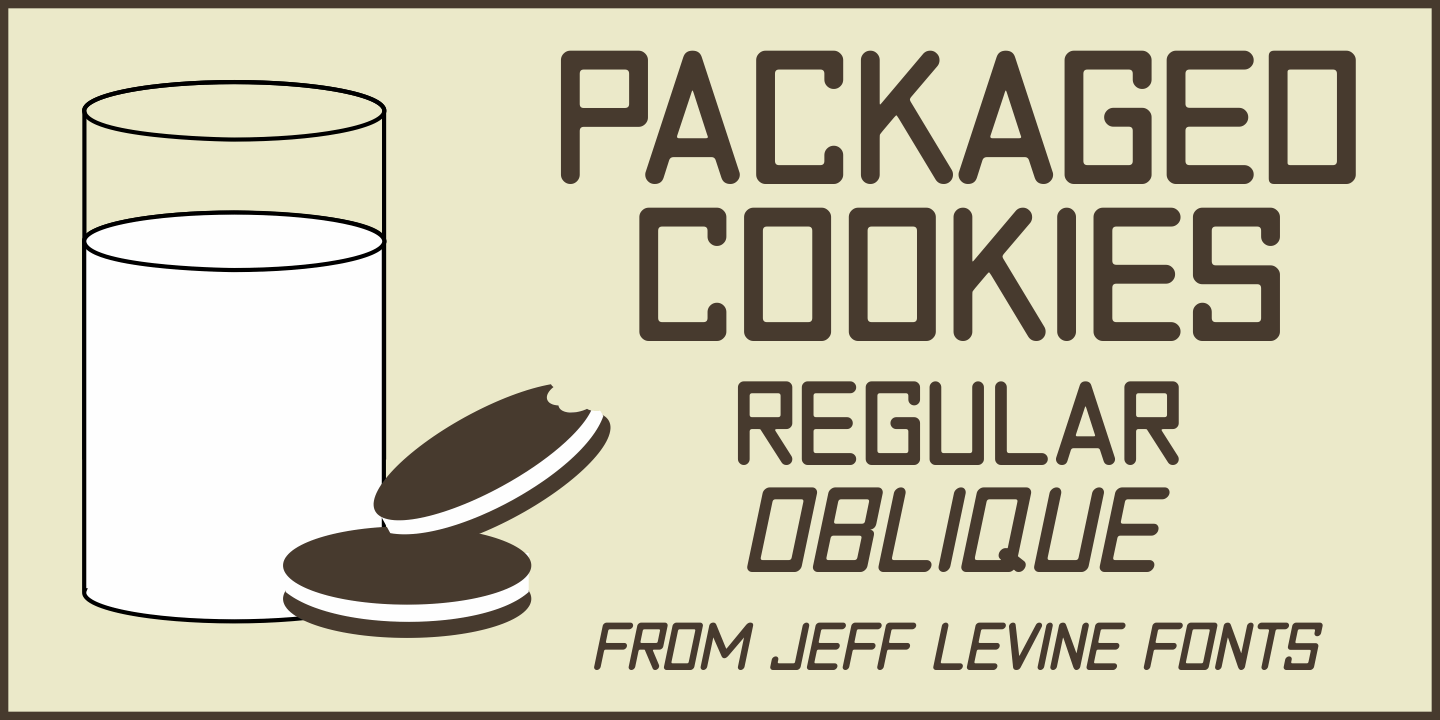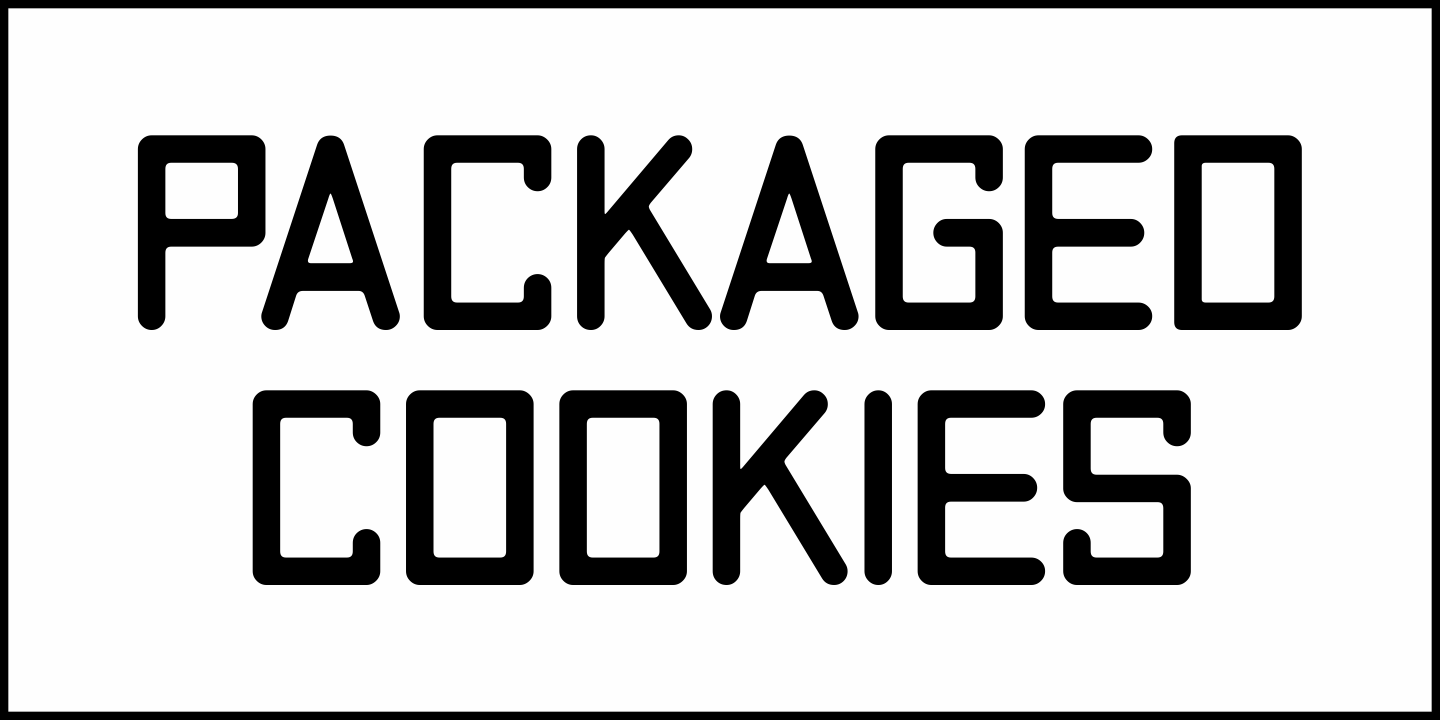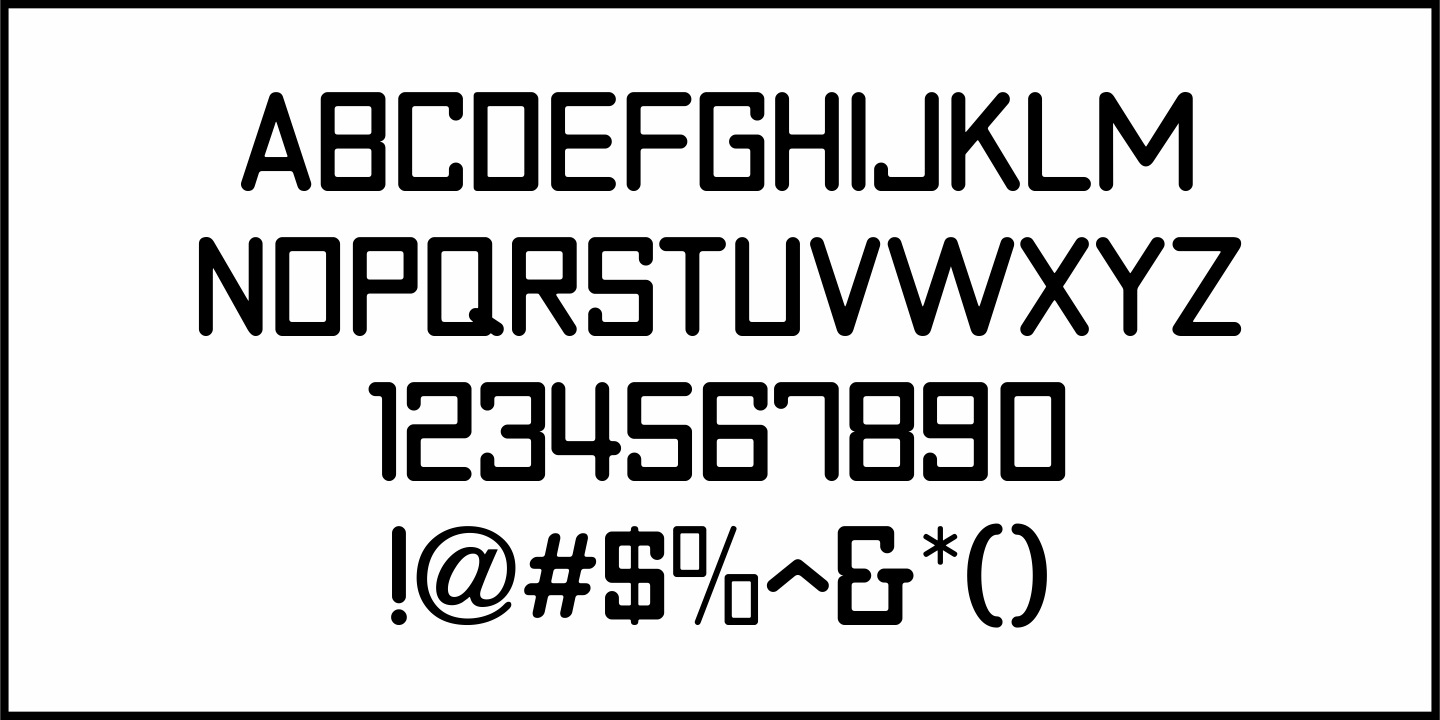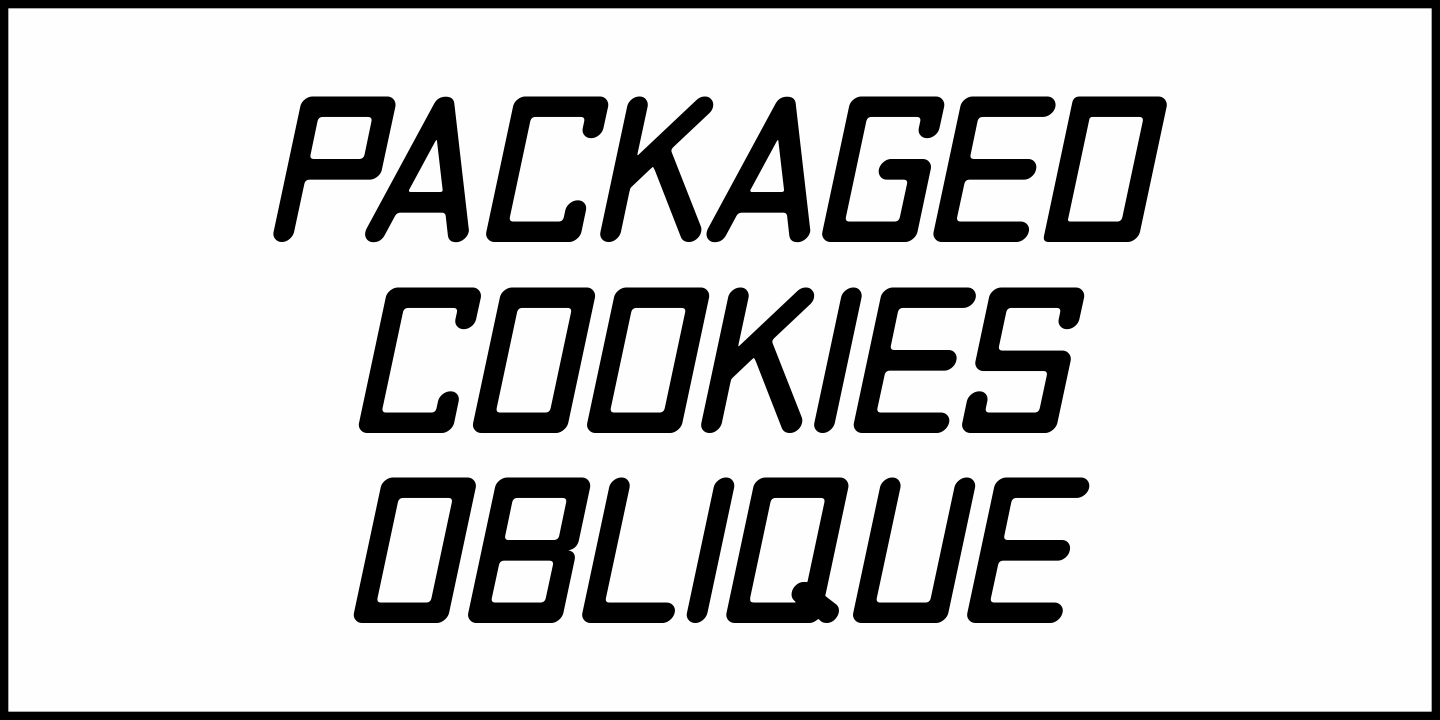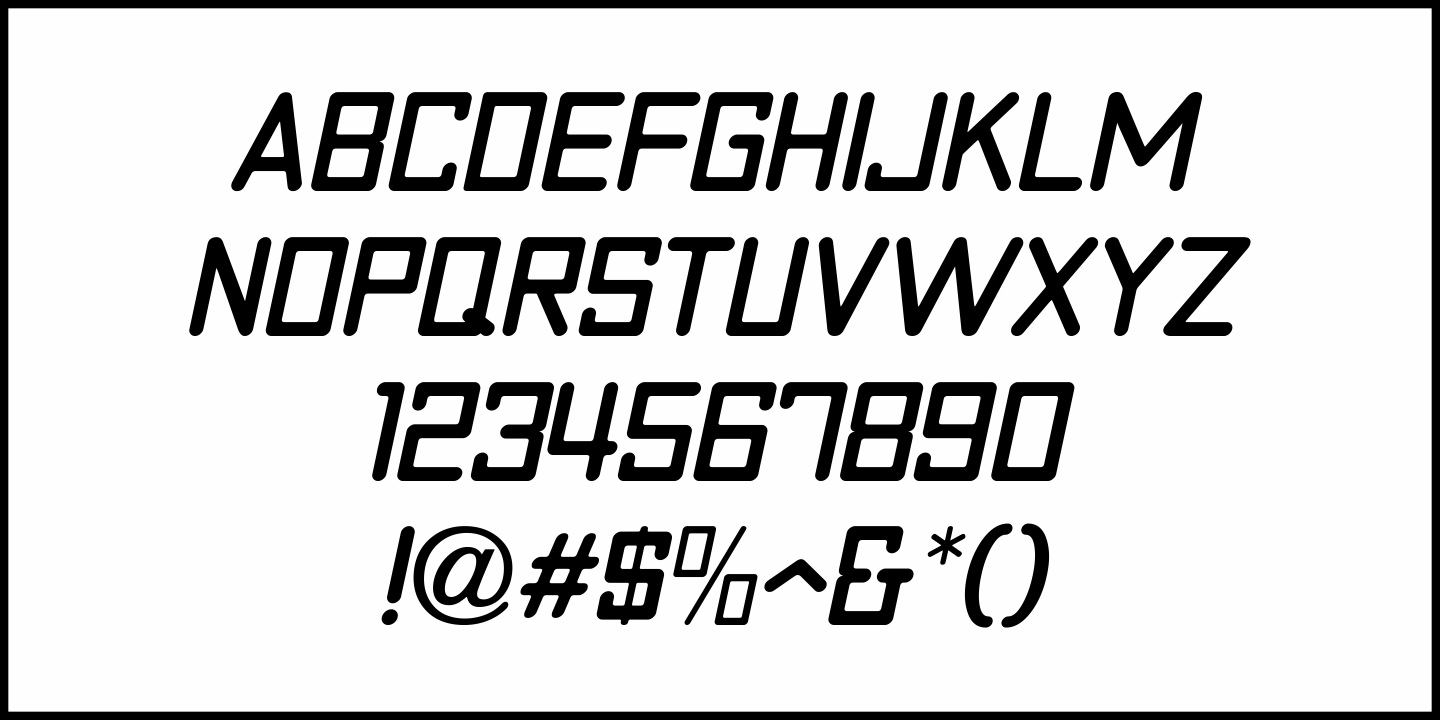
Packaged Cookies
An image found online of the first [1923] “Oreo Sandwich” package provided a type inspiration from the pen-lettered block sans with rounded corners used for the product's name. Prior to 1923, the cookies were sold in boxes or tins.
The result is Packaged Cookies JNL, which is available in both regular and oblique versions.